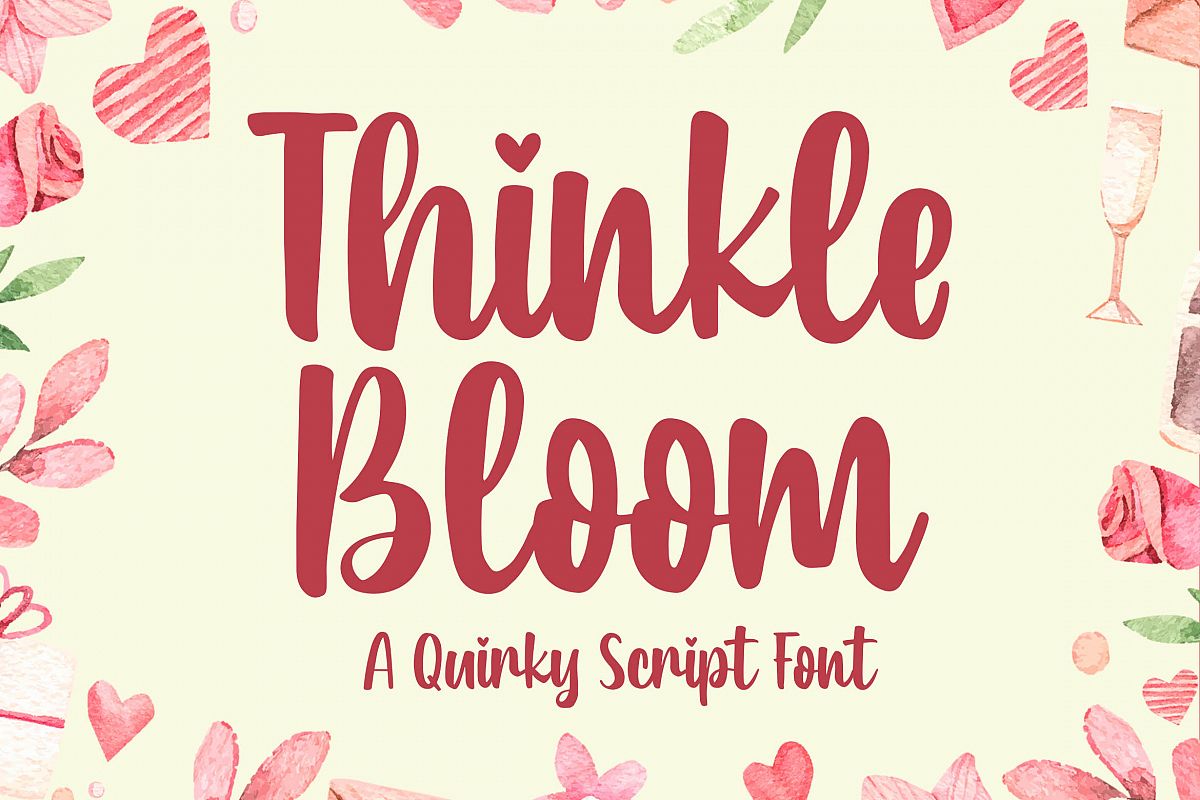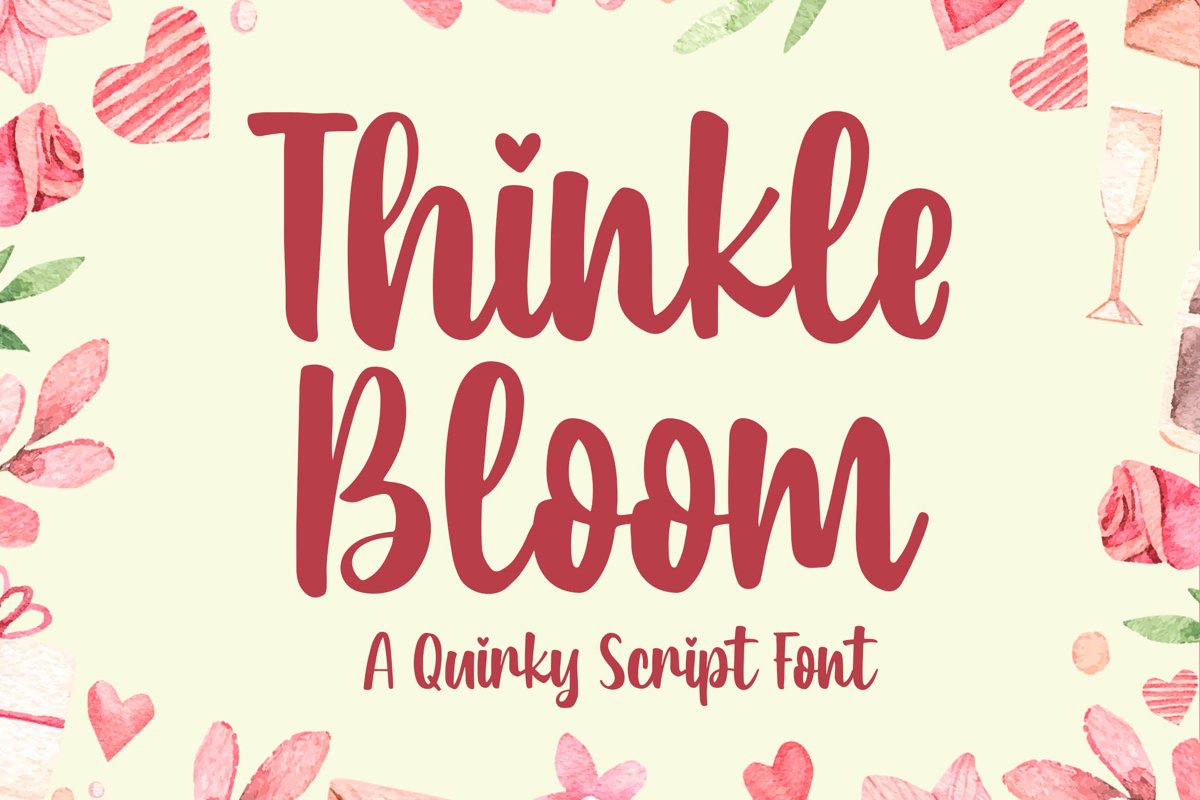
Introducing of our new product the name is Thinkle Bloom a Quirky Font. Thinkle Bloom inspired by modern calligraphy this font is a fun theme very good for,poster, food, wedding, branding etc
MULTILINGUAL ACCENT :ØÆøæ¢ÐŒœÁĂÂÀÄĄÅÃǼĆČÇĈĊĎÉĔĚÊËĖÈĘĞĜĢĠĤÍĬÎÏİÌĮĨĴĶĹĽĻĿŃŇŅÑÓŎÔÖÒŐǾÕŔŘŖŚŠŞŜȘŤŢÚŬÛÜÙŰŲŮŨẂŴẄẀÝŶŸỲŹŽŻáăâäàąåãǽćčçĉċďéĕěêëėèęğĝģġĥíîïìįĩĵķĺľļŀńʼnňņñóŏôöòőǿõŕřŗśšşŝșťţŭûüűùųůũẃŵẅẁýŷÿỳźžż